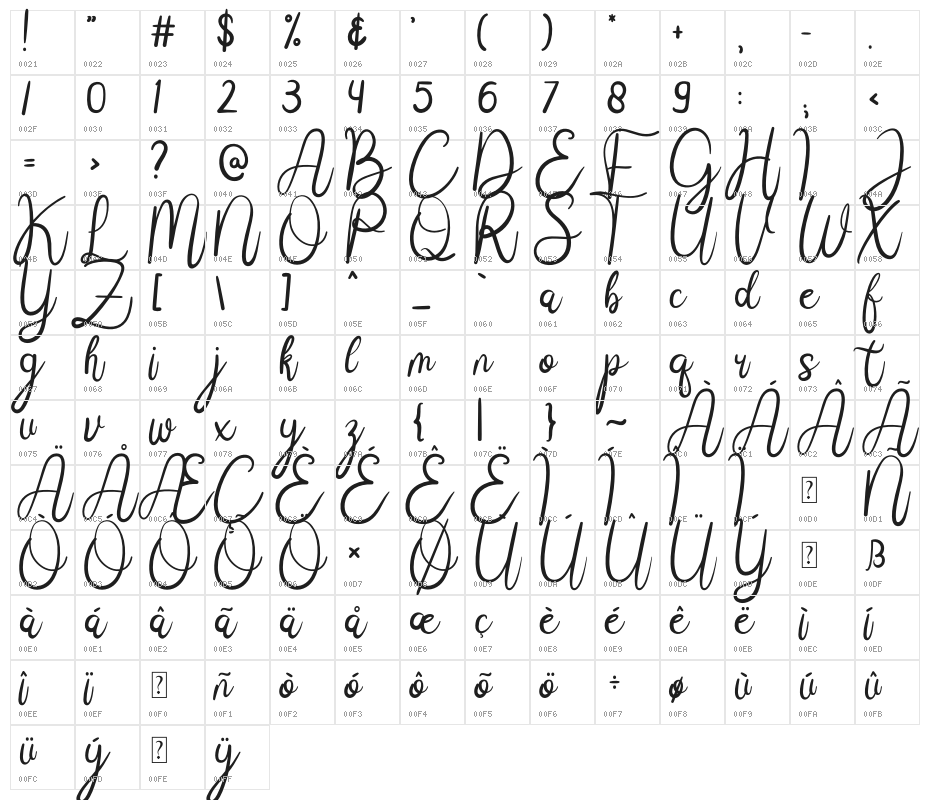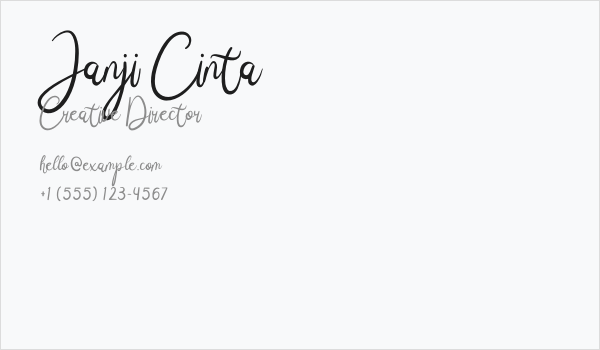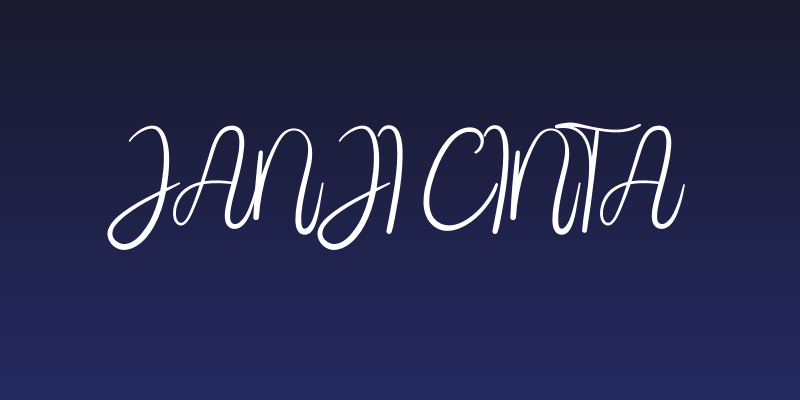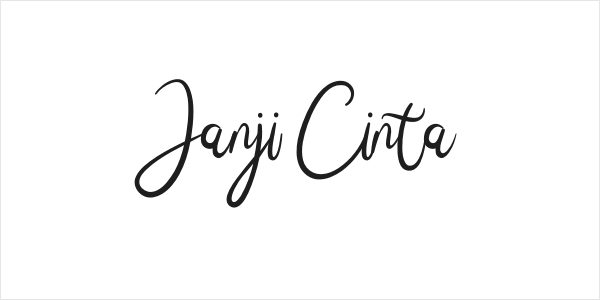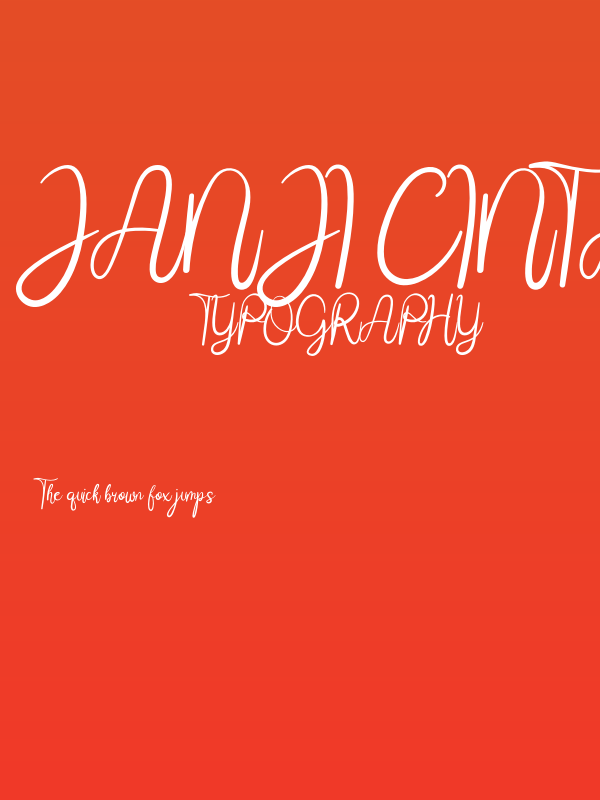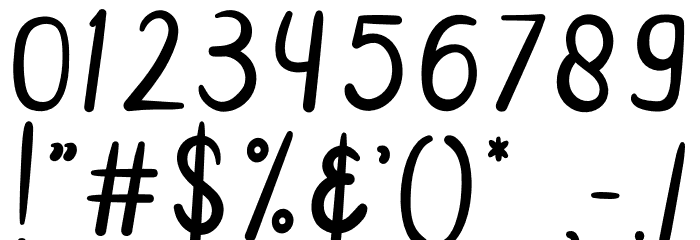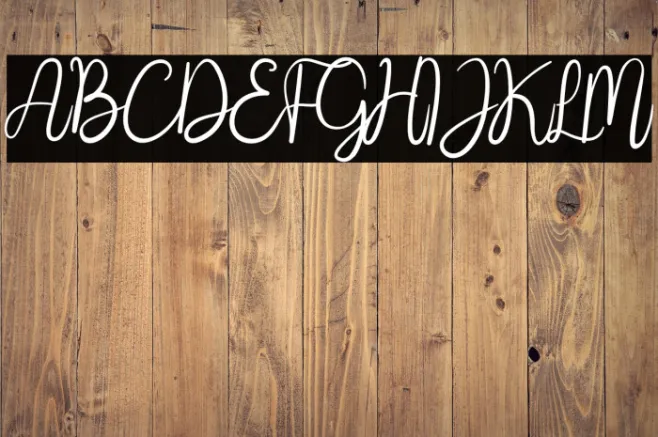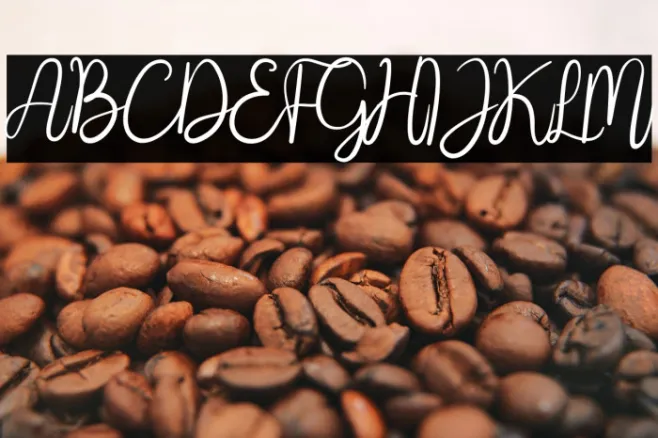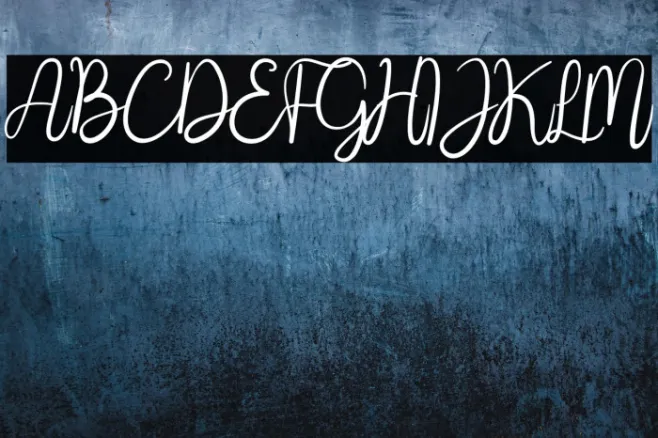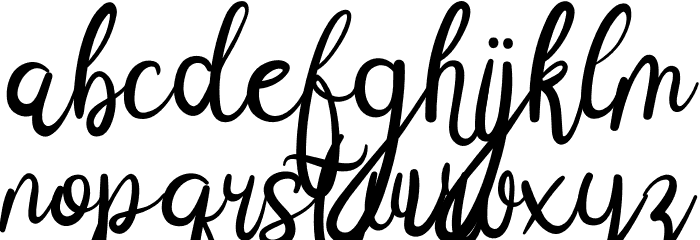
Janji Cinta Font
Janji Cinta Description
This font features a flowing, cursive style with a modern twist. The uppercase letters are elegantly looped and connected, giving a sense of fluidity and grace. The lowercase letters maintain a consistent style, with some characters featuring unique flourishes that add personality. The numbers are clear and legible, with a slight slant that complements the overall script style. Special characters are designed to match the cursive theme, ensuring a cohesive look across all text. The font's design is both decorative and functional, making it suitable for a variety of creative projects.
| Proposed Projects | Ideal for wedding invitations, greeting cards, branding projects, and elegant logos. |